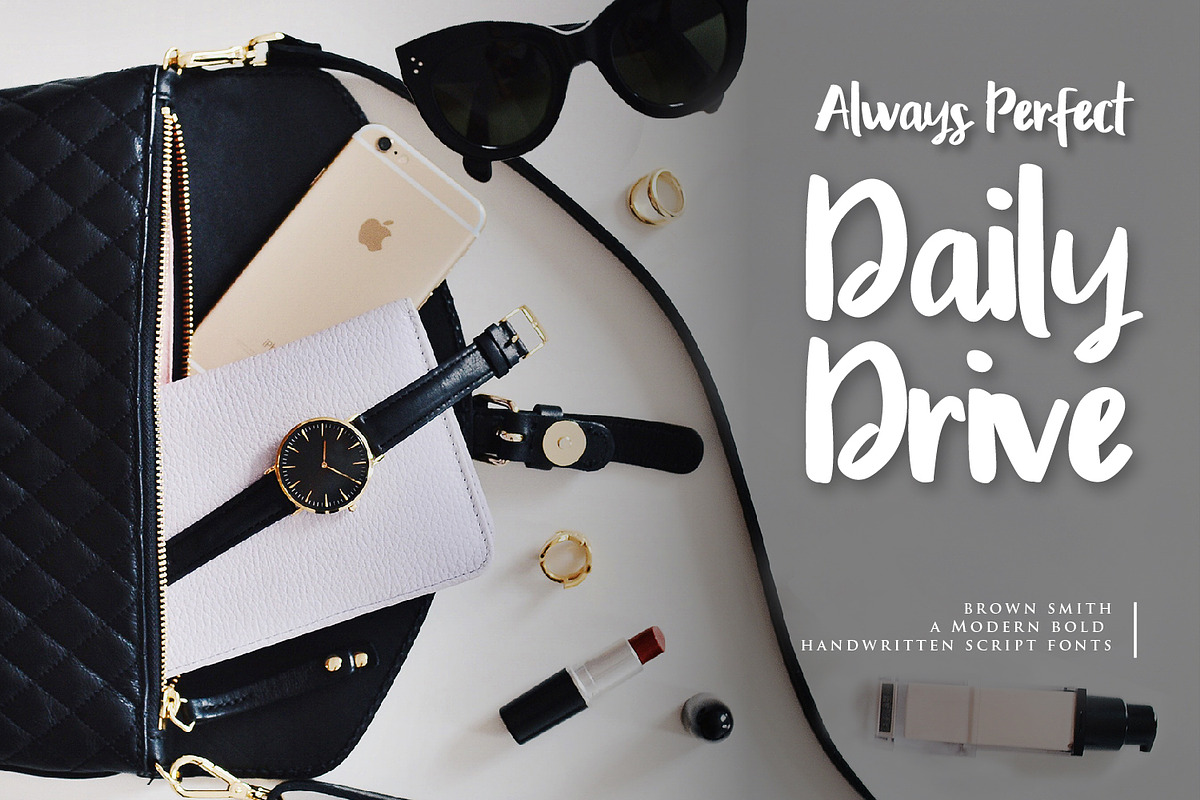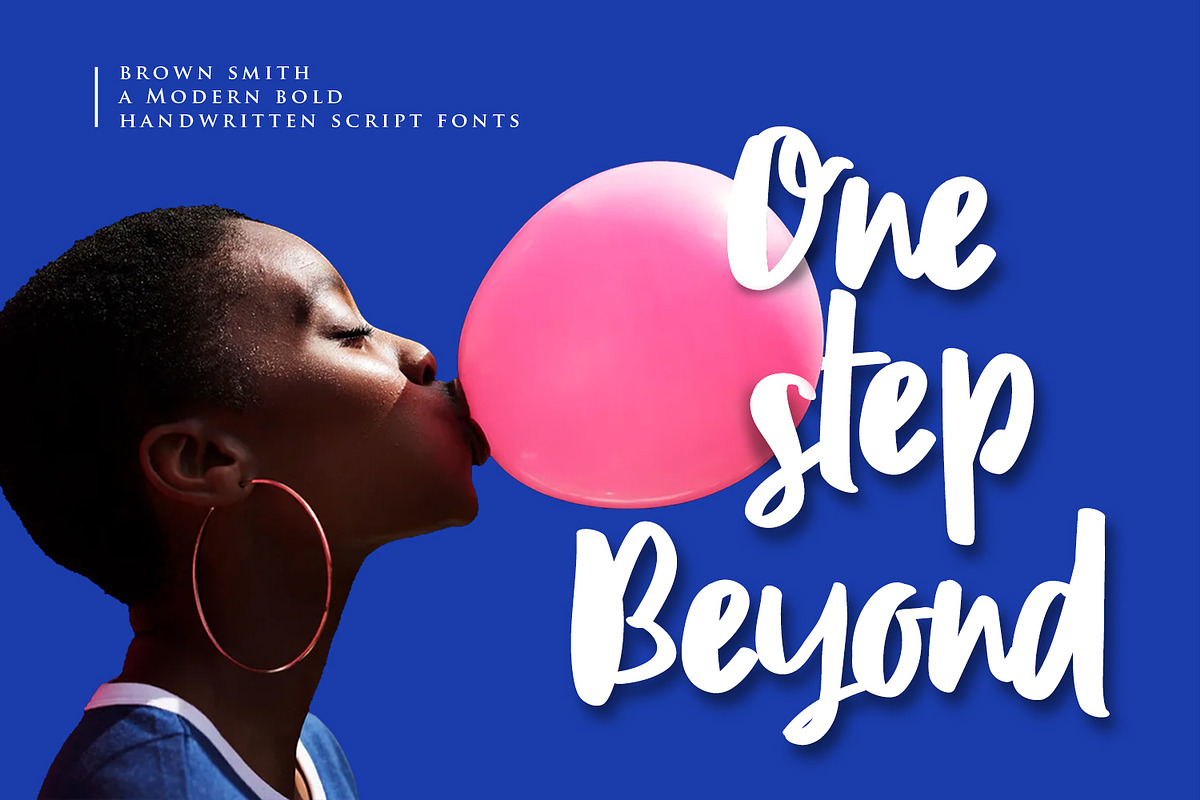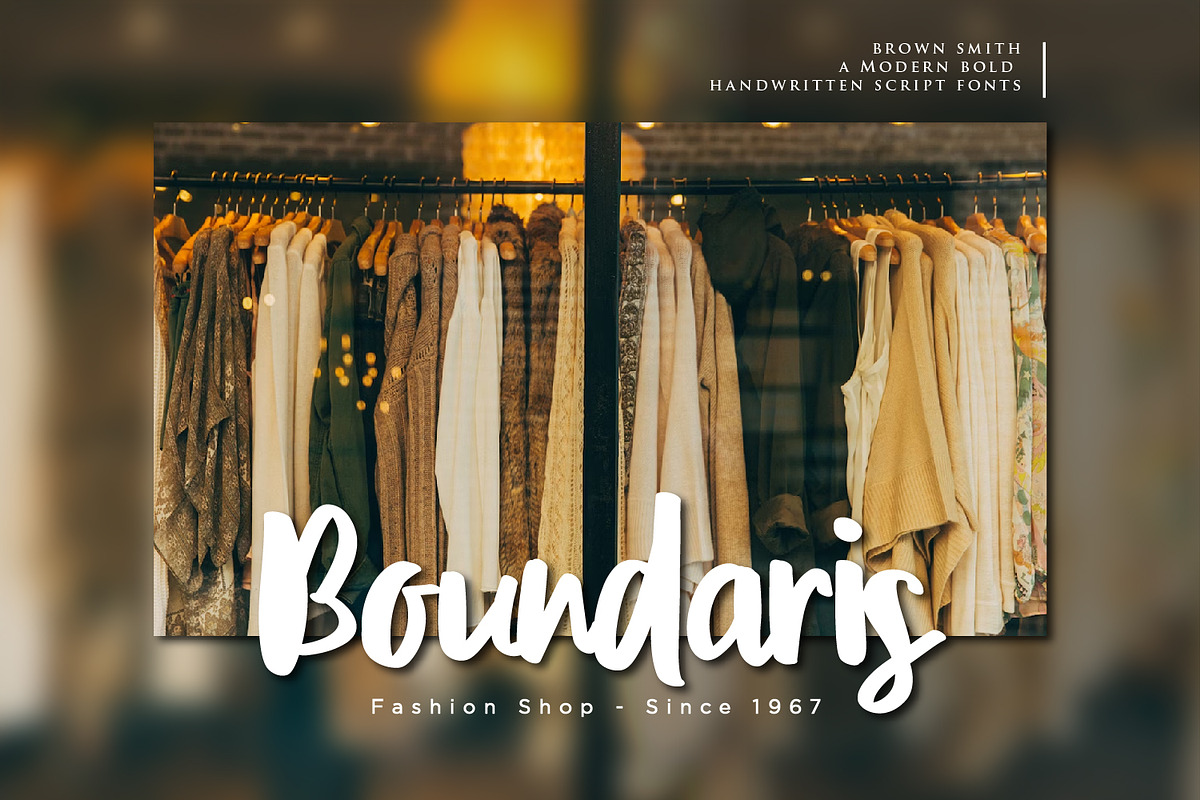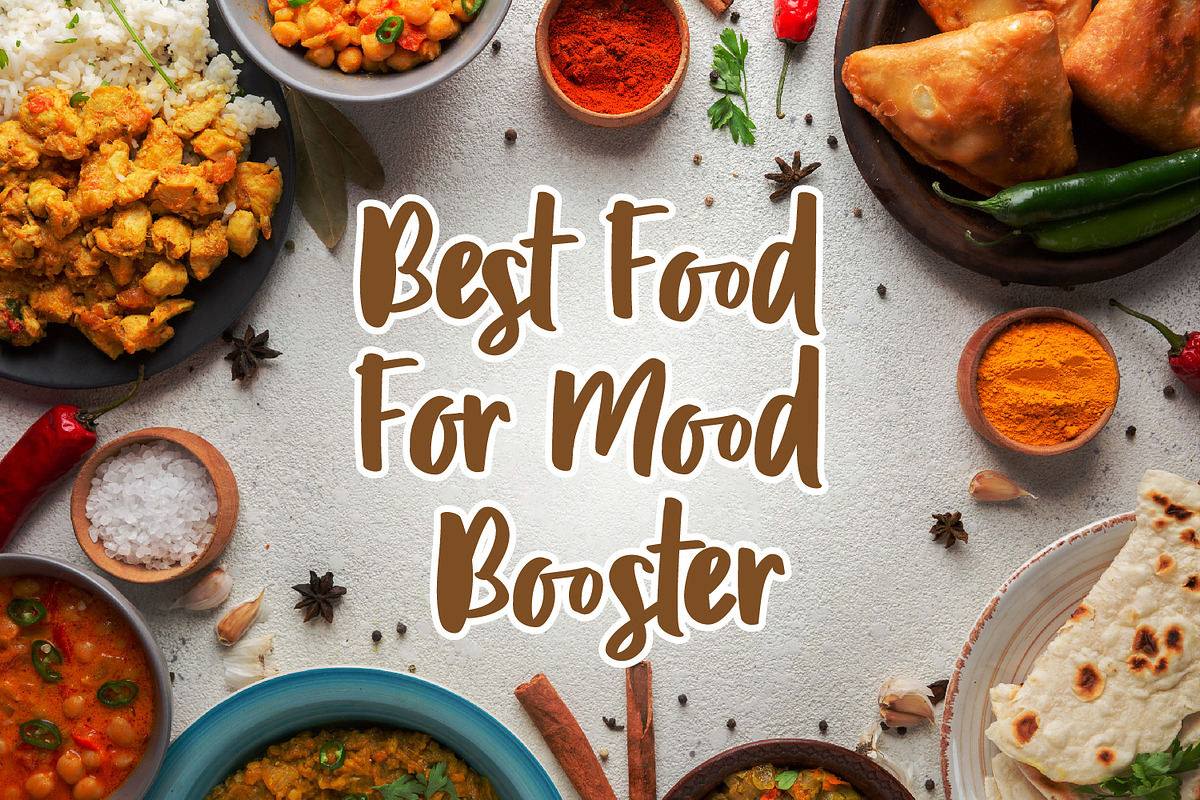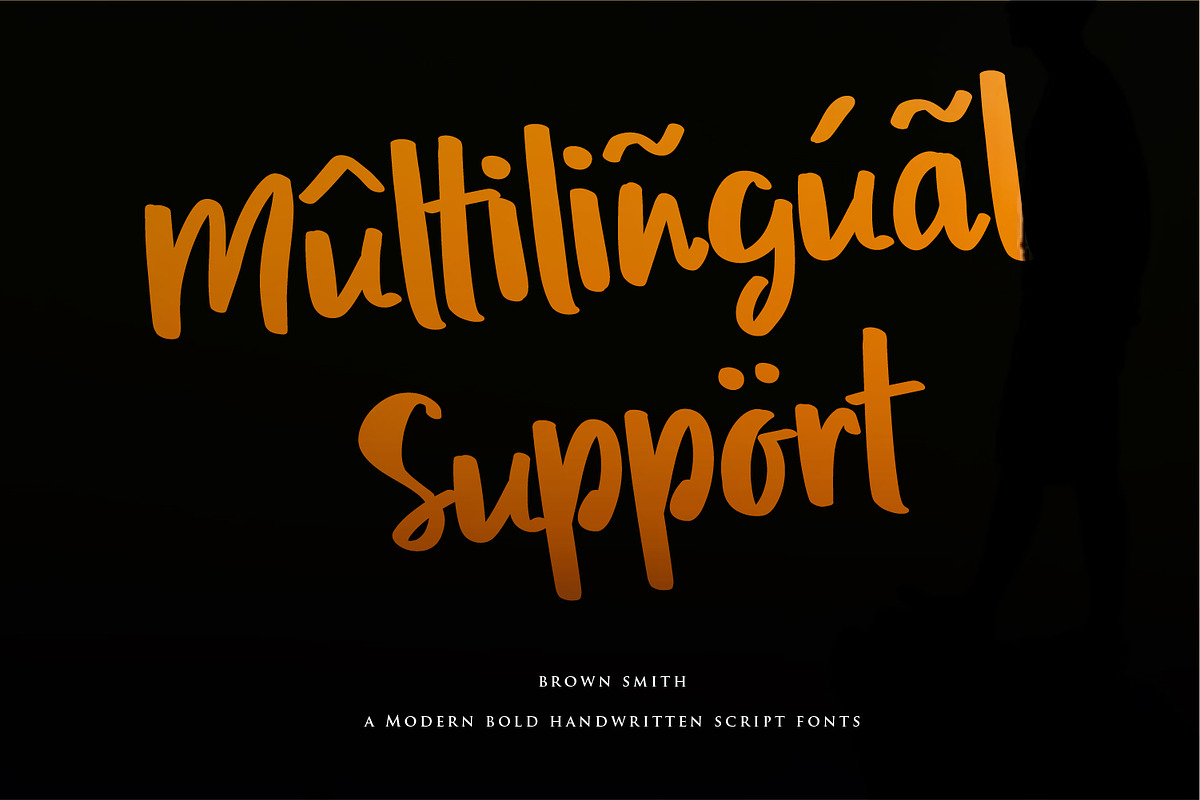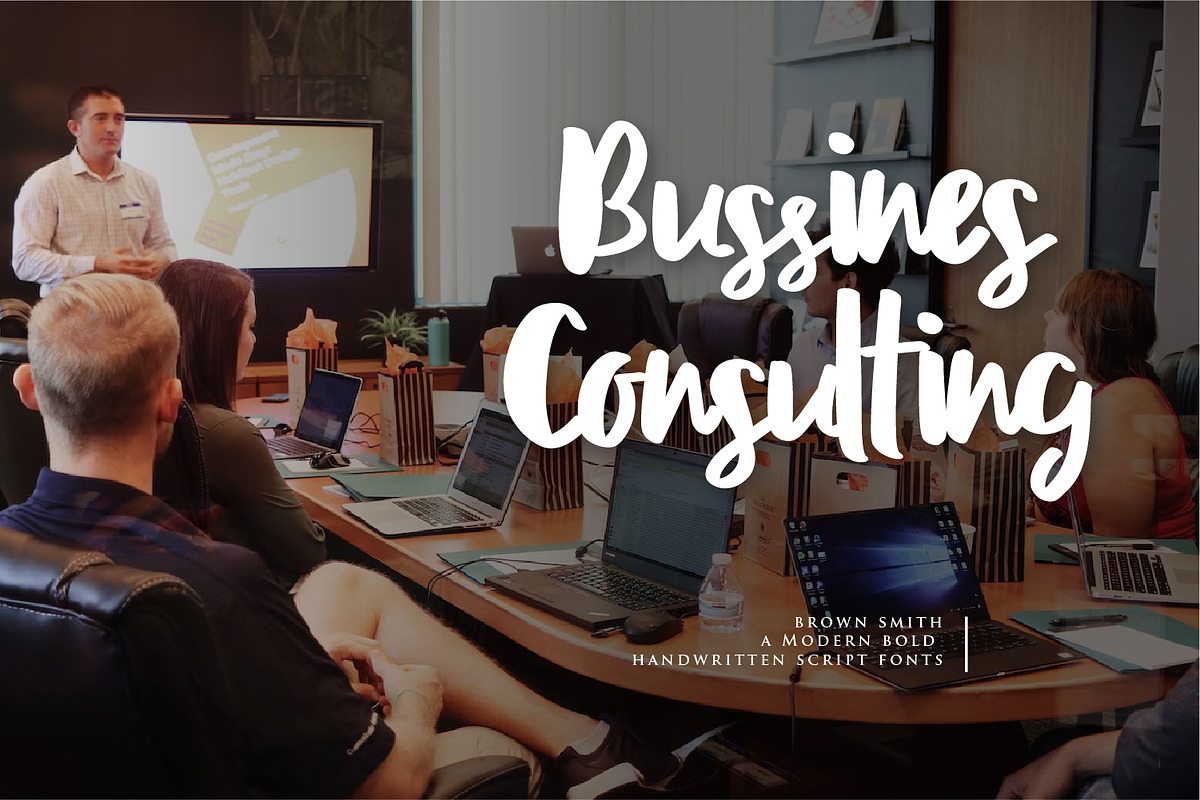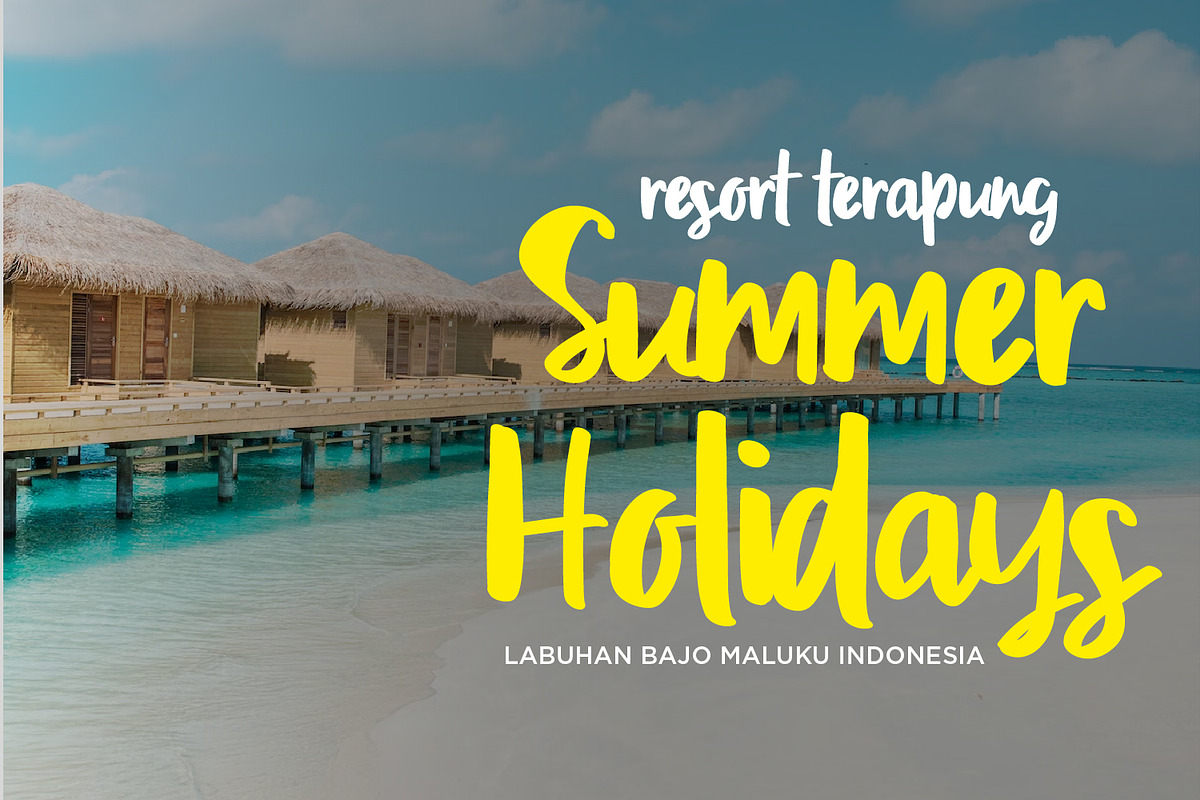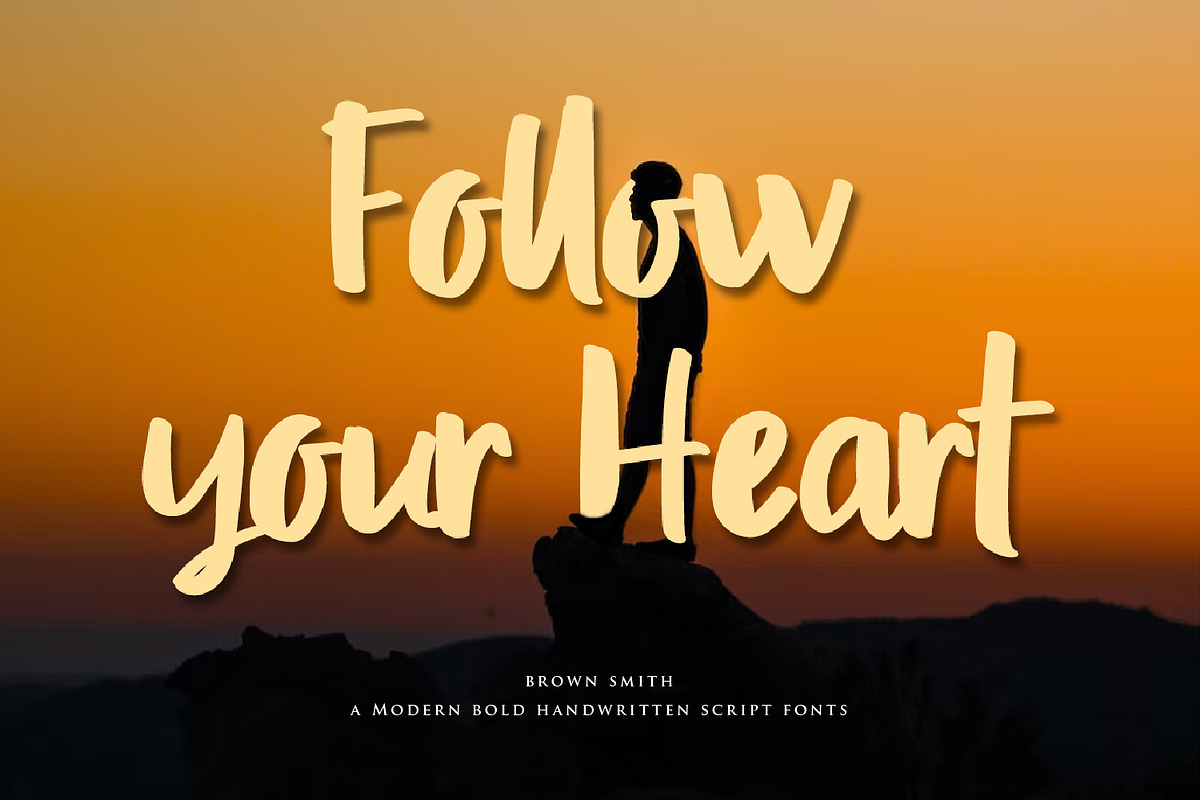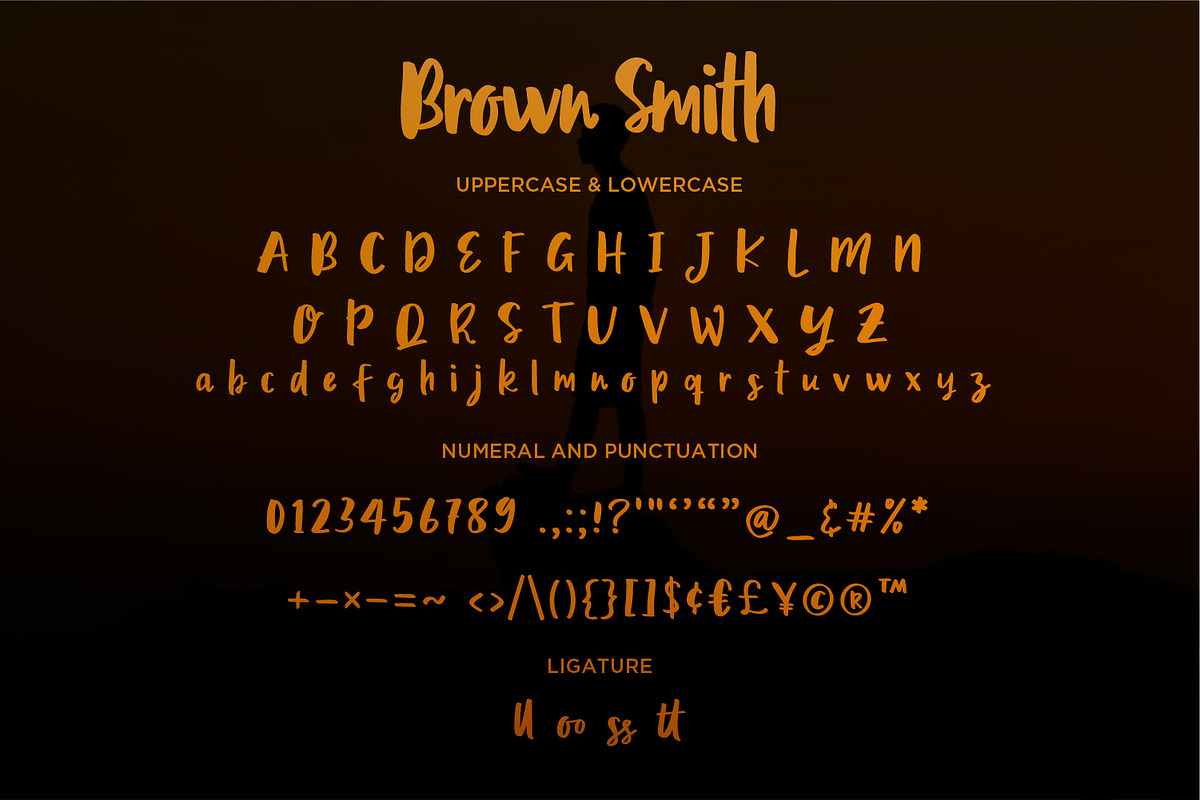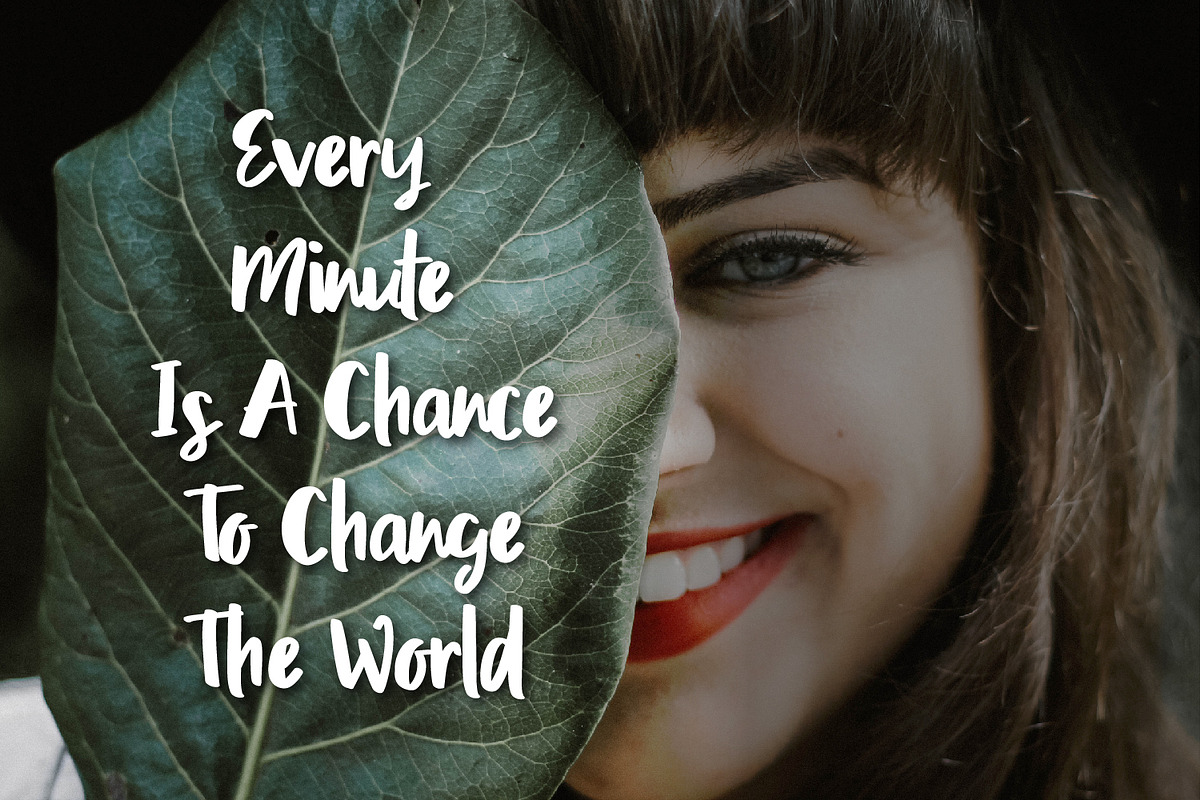
Brown Smith - Modern Bold Script fon
Brown Smith - Modern Bold Script fonts
Brown Smith is a Modern Bold script font, will be suitable for any projects such as branding, promotional ads, quotes design, merchandise, social media and much more. make your work or your business to high level!!! special events, and all your other lovely projects that need beautiful handwriting taste.